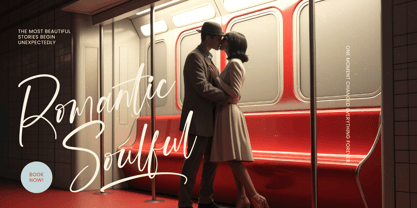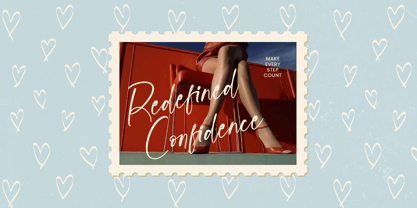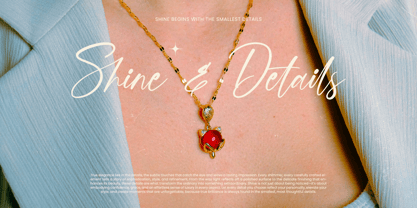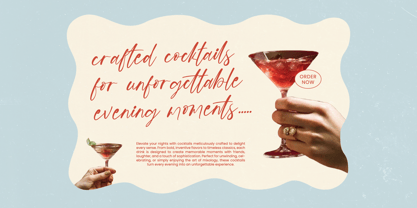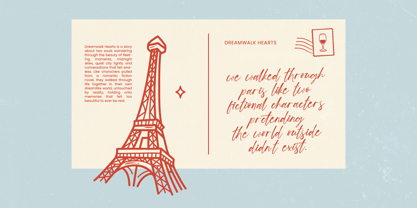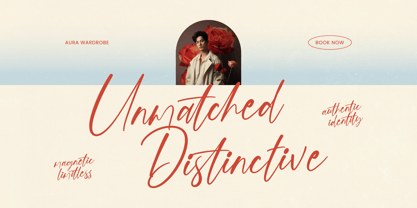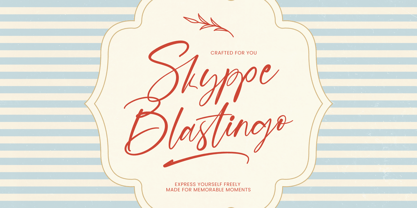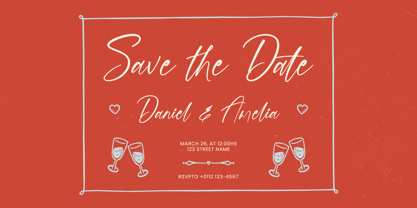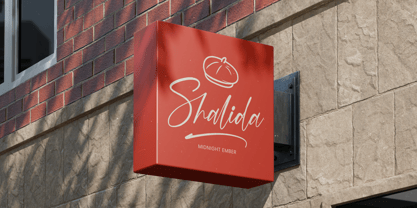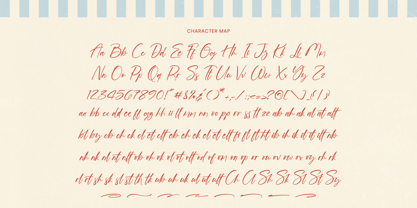
Skyppe Blastingo
The Skyppe Blastingo Font Family was designed by Heru Utama Putra and published by Stylishtype Studio. Skyppe Blastingo contains 2 styles and family package options. More about this family
Embrace the effortless elegance of Skyppe Blastingo, a typeface designed to infuse your creative projects with a sense of refined spontaneity and timeless charm. This handwritten script captures the soul of artisanal craftsmanship, turning every word into a piece of visual poetry.
Inspired by the sun-drenched terraces of Mediterranean cafes and the intimate feel of hand-penned love letters, this font evokes a nostalgic yet fresh atmosphere. It bridges the gap between old-world sophistication and contemporary flair, perfect for designs that tell a rich, personal story.
Achieving a perfect balance between playfulness and prestige, this font delivers a modern serif display sensibility within a fluid script form. It is the ultimate choice for those seeking luxury typography and a high-contrast serif aesthetic that provides a lasting branding impact and functions as a premier editorial font for high-end layouts.